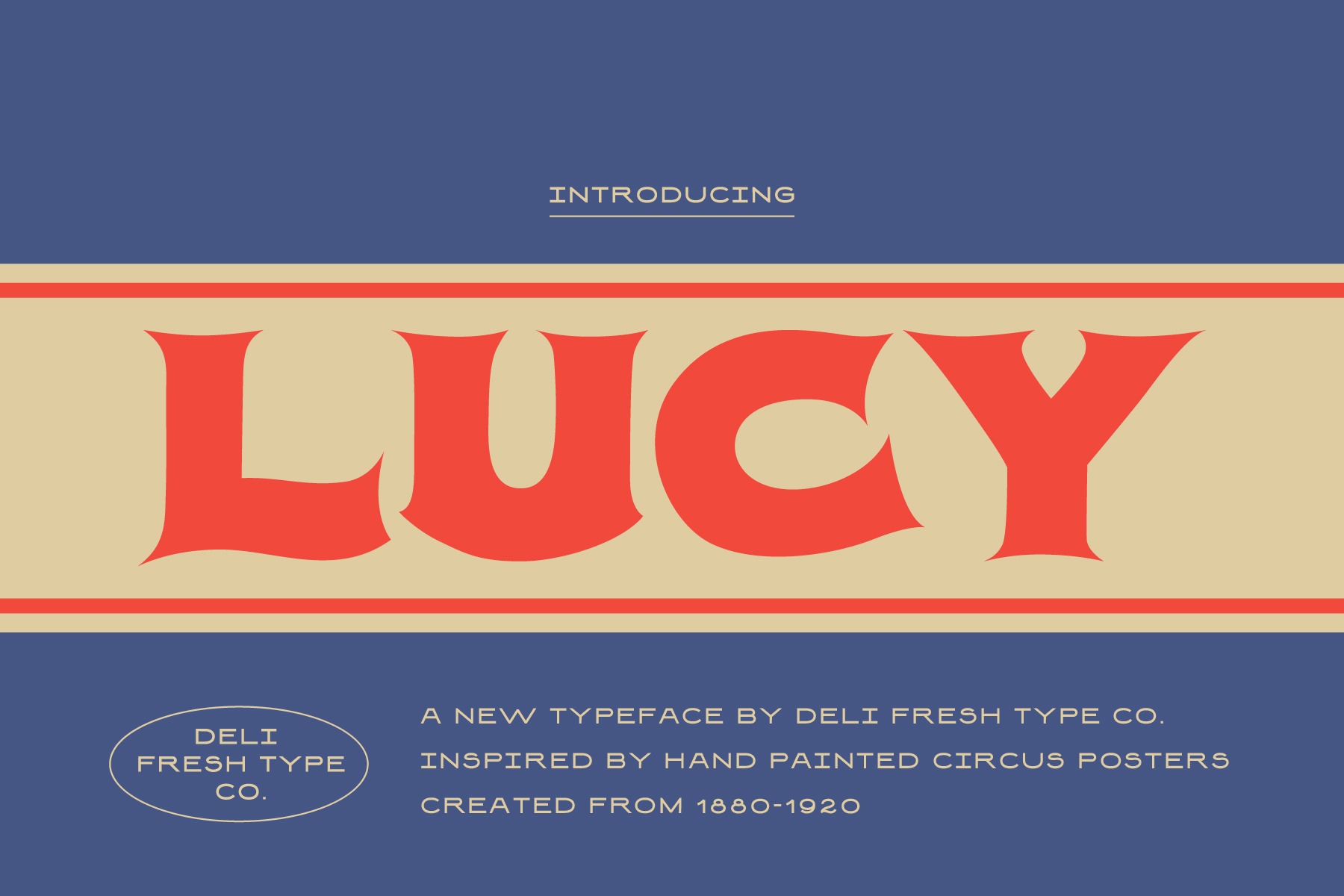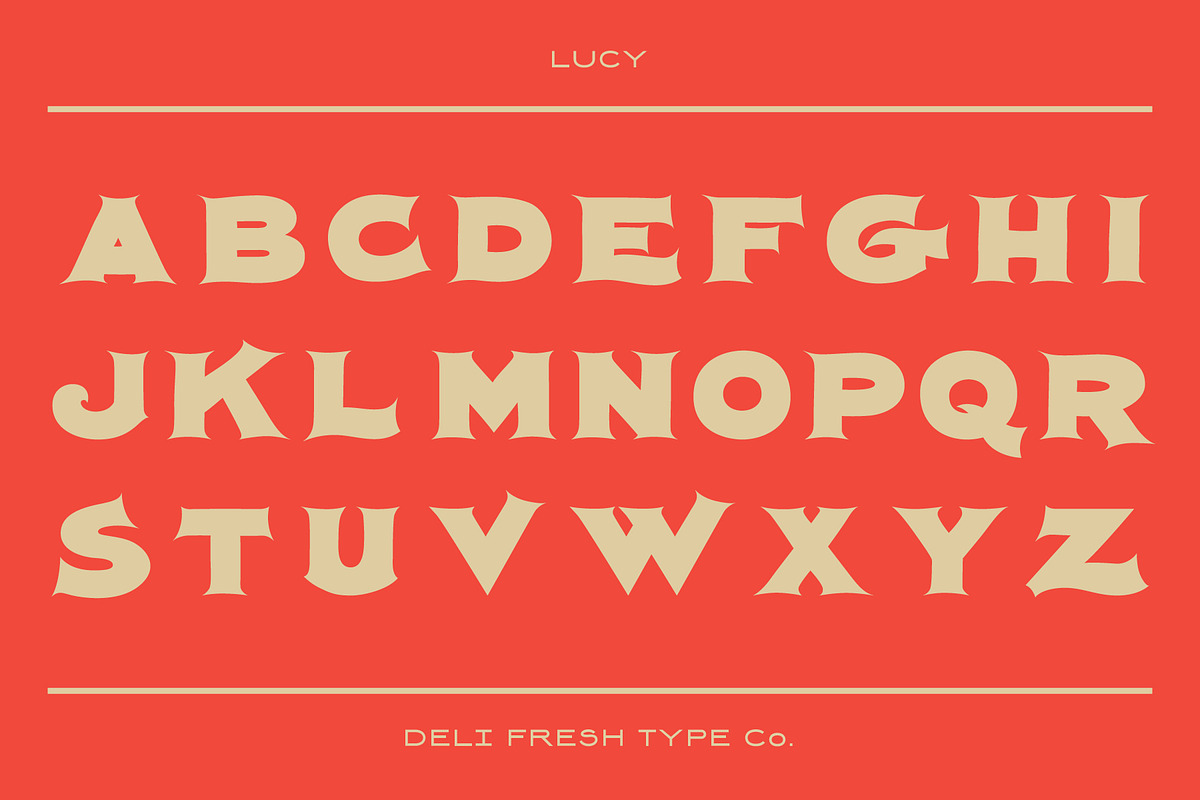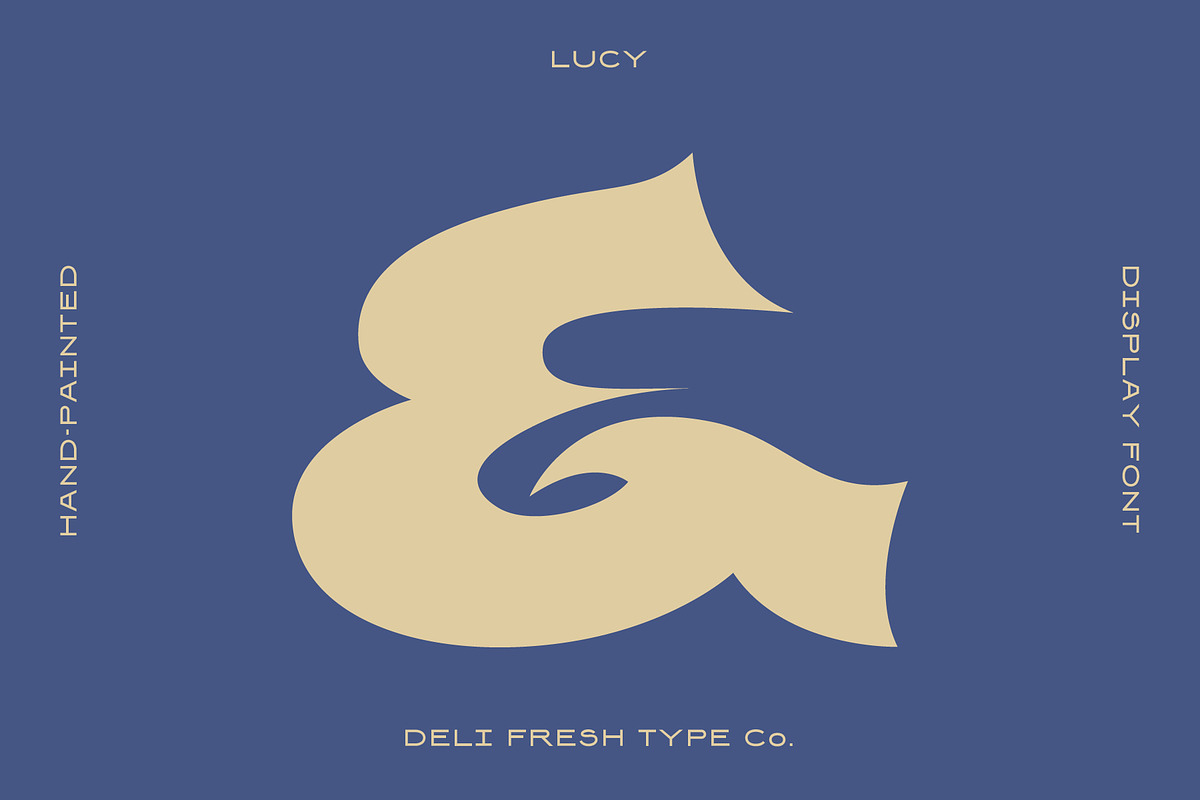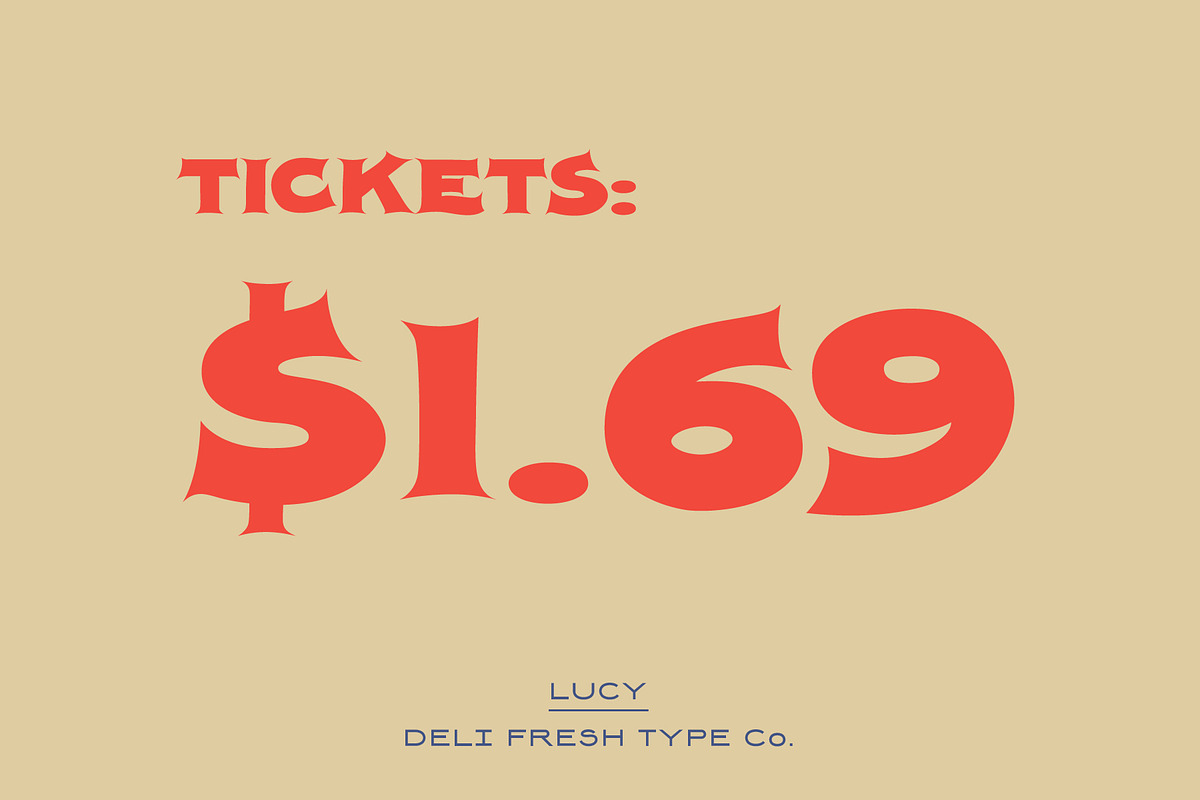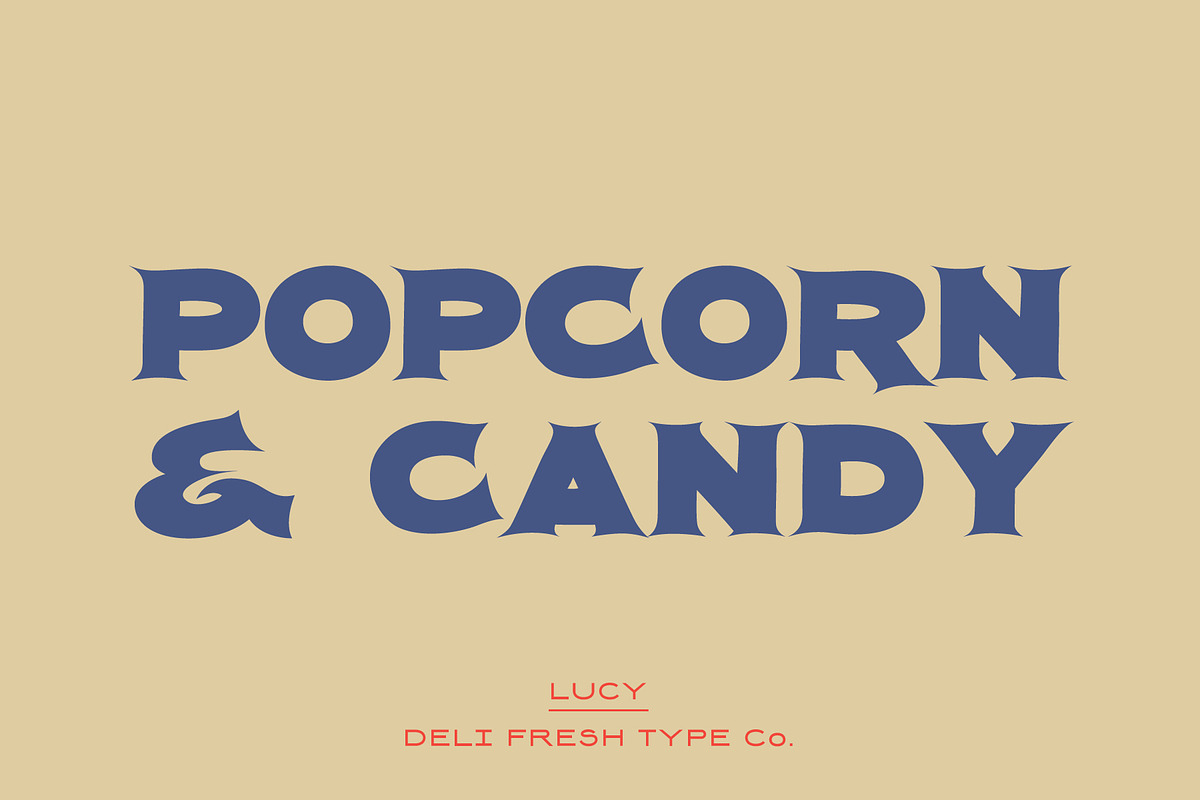
Lucy: A Circus Poster Font
A vintage display typeface inspired by antique hand painted circus posters.
This hefty font comes with capitals, numerals, and a smattering of special characters.